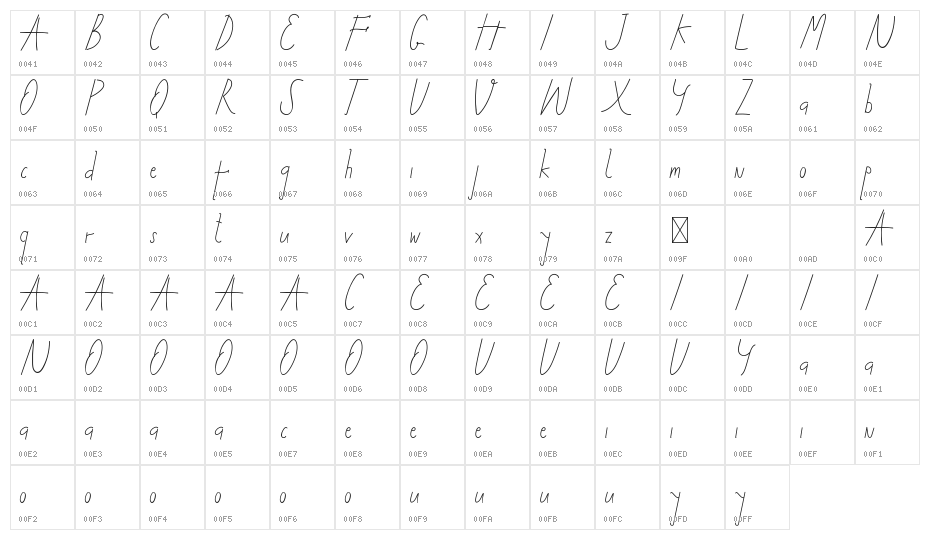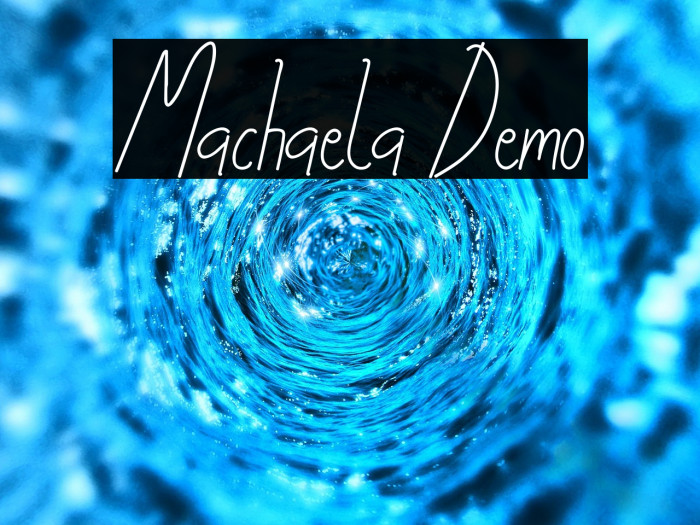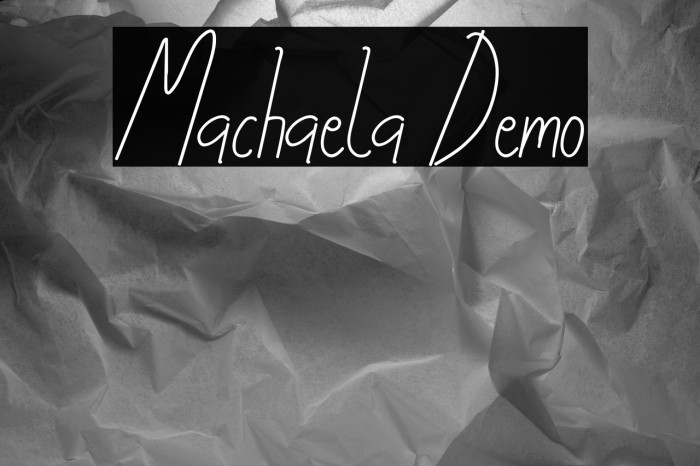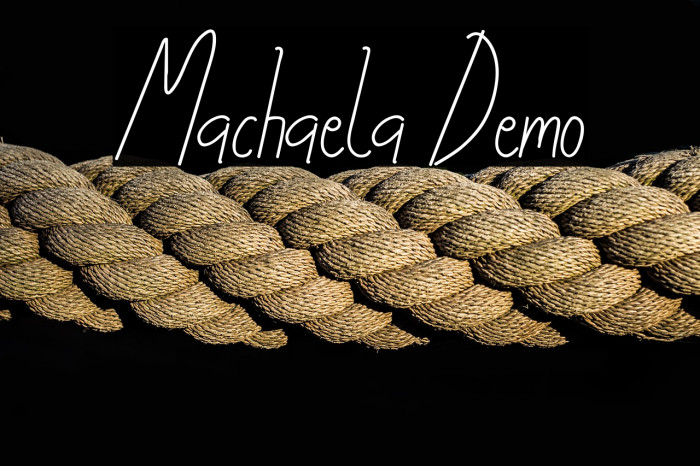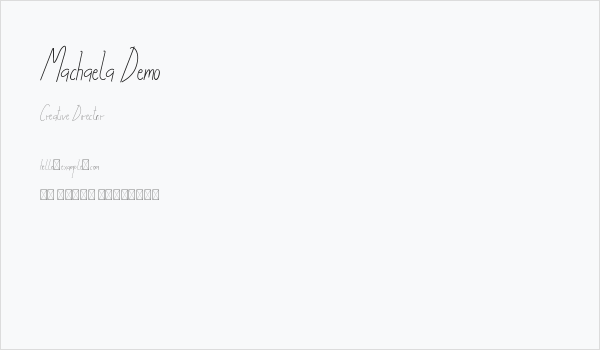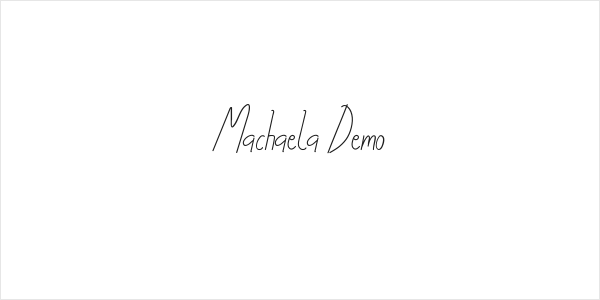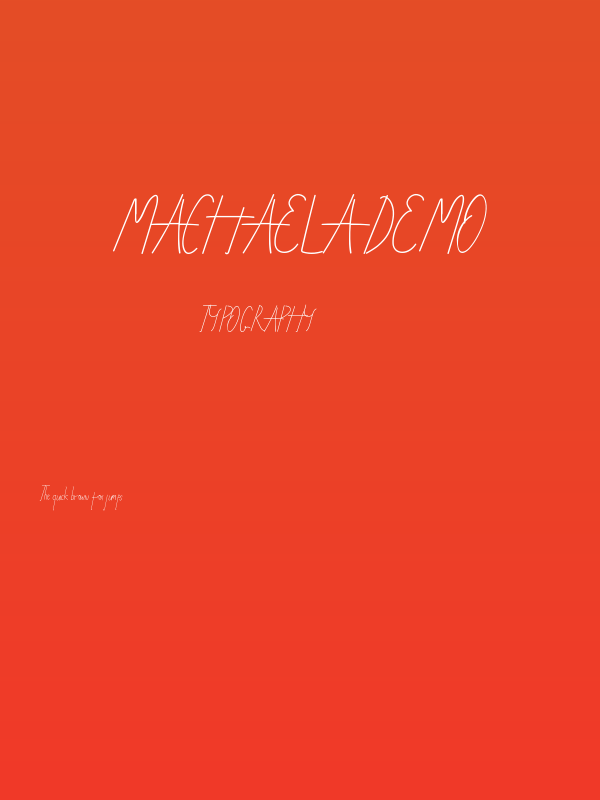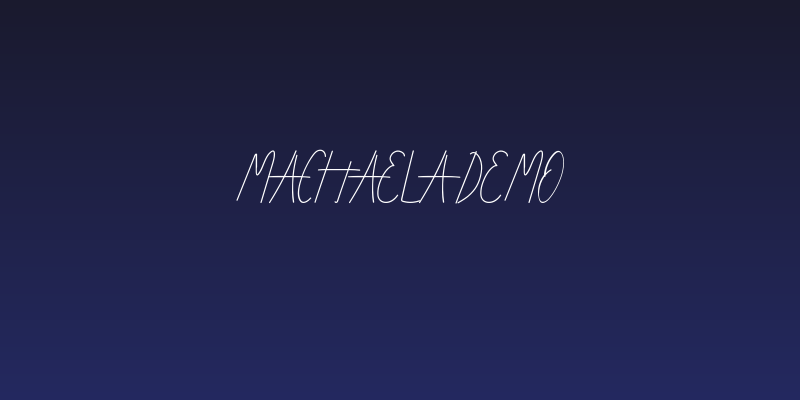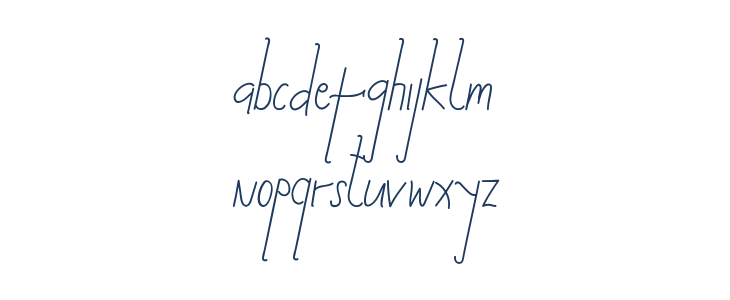
Machaela Demo Font
Machaela Demo Description
This font features a delicate and elegant handwritten style, characterized by its thin, flowing lines and graceful curves. The uppercase letters are tall and slender, with a slight slant that adds a sense of movement and fluidity. The lowercase letters maintain a consistent height and are designed with a similar slant, creating a harmonious and cohesive appearance. The numerals are distinct and easily readable, while the special characters blend seamlessly with the overall aesthetic. The font's airy and open design makes it suitable for projects that require a touch of sophistication and elegance.